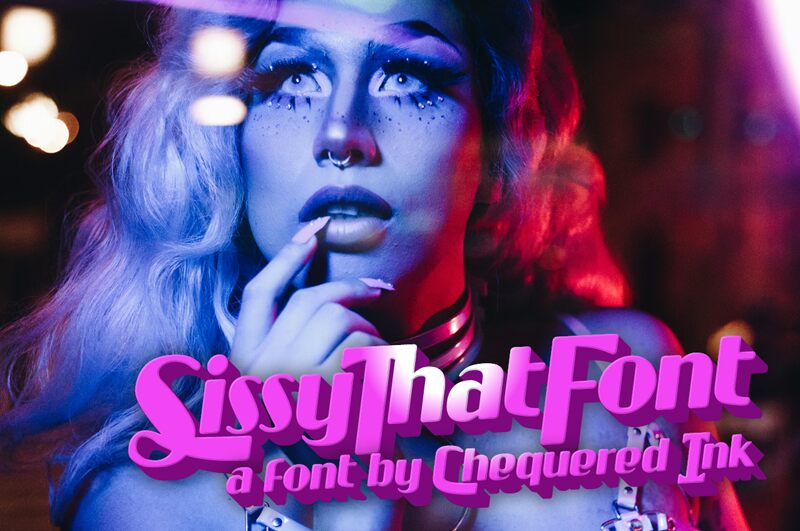
Sissy That Font by Chequered Ink is a retro free font that combines timeless elegance with contemporary dynamics. The sleek, stylish letters are vibrant and energetic, bringing in the font a unique lively vibe. The engaging and expressive letterforms are perfect for modern-day applications requiring a striking and memorable effect.
Sissy That Font is suitable for logos, branding, social media advertisements, and other visual platforms. It fits online and offline campaigns, events in various scenes, and packaging designs. Typography-focused abstract compositions and posters are also a way to use this fabulous design.